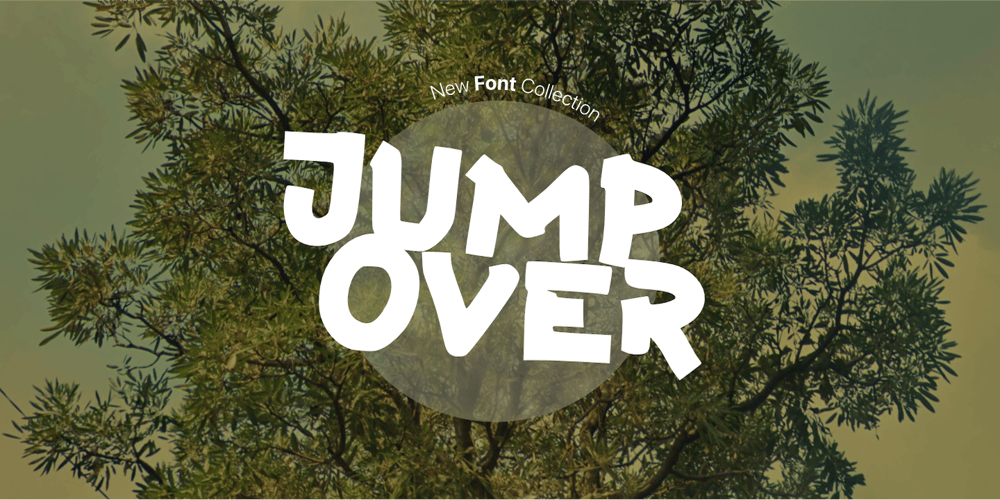
Jump Over Font Family was designed by Wahyu Eka Prasetya, Afiat Sukmaraga and published by Hati. Jump Over contains 1 styles and family package options. Jump Over font.Picture a typeface that feels like a burst of raw energy. Its strong, rough design exudes a sense of defiance and power, making it ideal for attention-grabbing headlines.